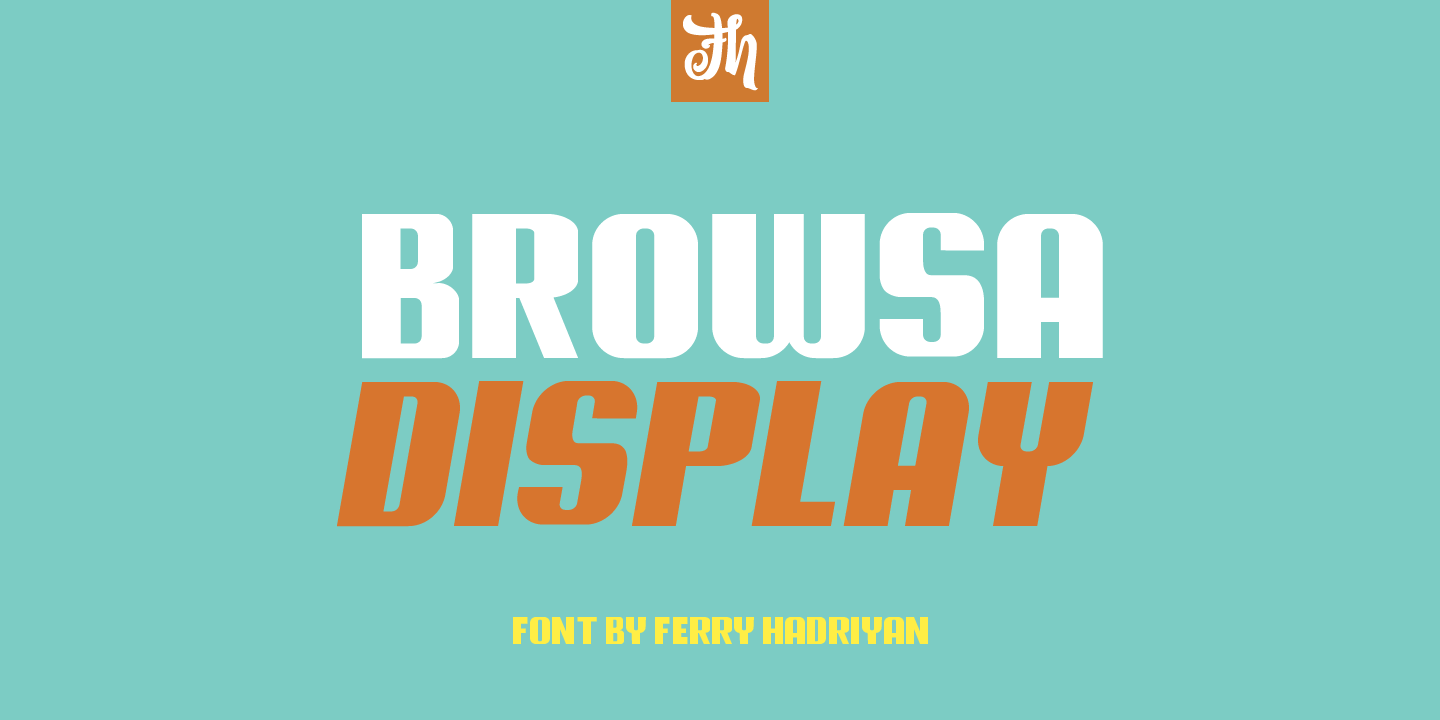
Browsa Font is perfect for modern web interfaces, digital magazine layouts, contemporary app designs, sleek e-commerce platforms, innovative startup branding, clean portfolio websites, tech blog headers, and sophisticated online publications. This versatile typeface excels in digital environments, user interface applications, and any project requiring contemporary readability that enhances browsing experiences and modern digital communication across multiple screen formats.
What makes Browsa Font exciting is its exceptional optimization for digital reading and screen-based applications through carefully balanced letterforms that ensure perfect clarity across all device sizes and resolutions. The font features precisely engineered characters with optimal spacing and contemporary proportions that enhance user experience and digital comprehension, making it ideal for brands seeking to establish strong online presence and communicate through superior digital typography. Its screen-friendly design ensures excellent performance in modern browsing environments.
Browsa Font family includes multiple weights and styles: Regular, Bold, Light, Medium, Italic variations, and condensed versions optimized for responsive web design applications. Each family member maintains the distinctive digital character while offering comprehensive typography solutions for complex interface hierarchies, from readable body text to attention-grabbing headlines that perform flawlessly across desktop, tablet, and mobile browsing experiences.
Whether you're designing cutting-edge web platforms or creating modern digital publishing projects, Browsa Font Free Download provides the perfect typography solution for contemporary online branding needs. This font transforms ordinary digital text into engaging browsing experiences that communicate professionalism and modern sophistication. Digital agencies and tech-forward companies choose this typeface for its ability to convey contemporary excellence through digitally optimized letterforms that enhance online readability and create superior browsing experiences.